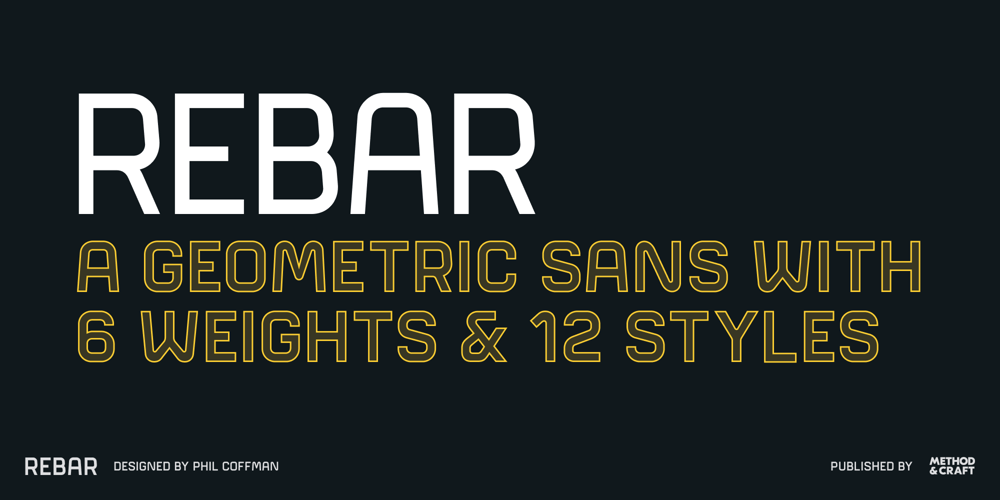
Rebar
Rebar font
Rebar Font Family was designed by Phil Coffman and published by Method & Craft. Rebar contains 12 styles and family package options. Consisting of 6 weights & 12 styles, Rebar is a geometric sans with harmonious curves and slightly angled framing which gives the typeface a foundation of balance and strength. Includes numbers, punctuation, some ligatures and diacritics for compatibility with many foreign languages.